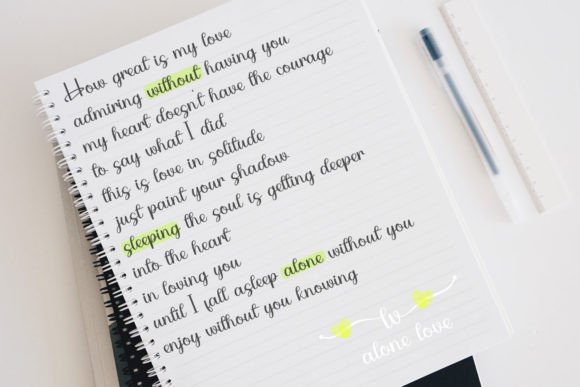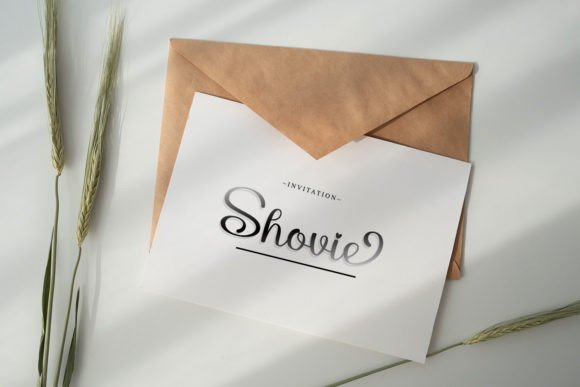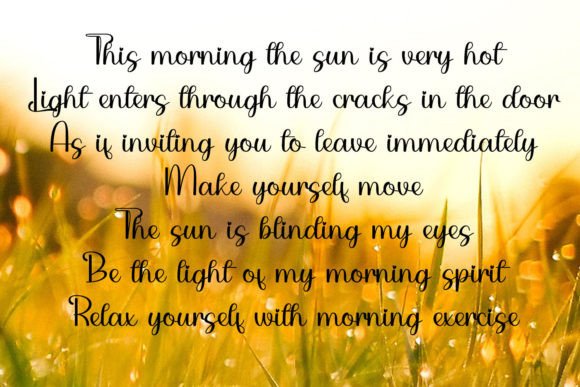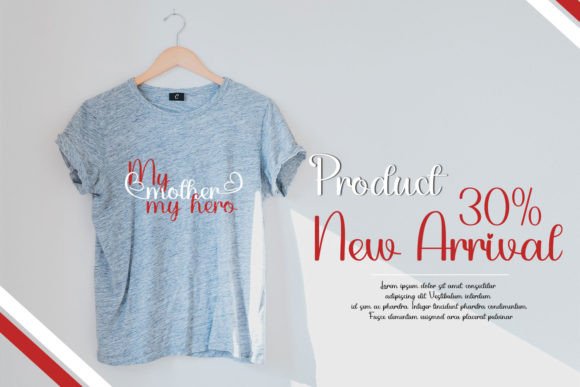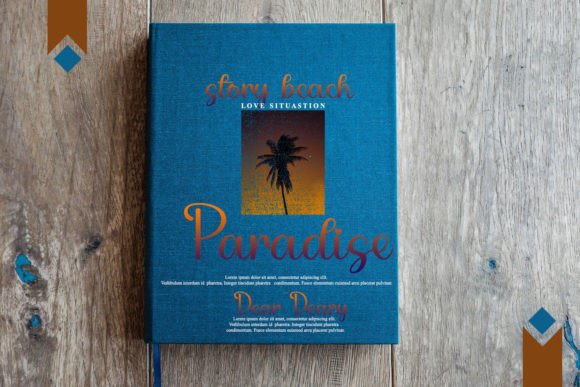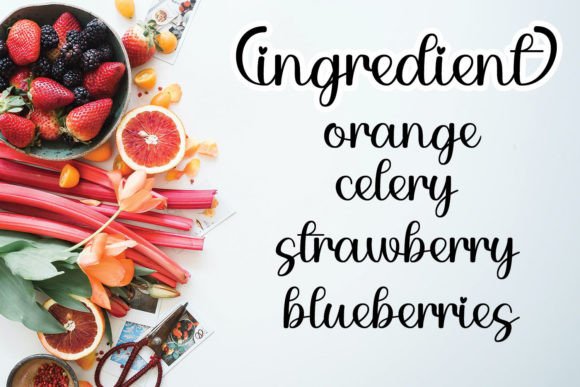
Introduction to Love Situation Font
Love Situation is a handwritten script & font with a new and simple style that provides many opportunities to use for various projects that want to work with stability in each letter and 300+ alternatives that are sure to provide countless comfort and creativity.
Key Features of Love Situation Font
Why Choose Love Situation Font?
Love Situation Font offers exceptional quality and versatility, making it a valuable addition to your design toolkit. Whether you’re creating for personal projects or commercial use, Love Situation Font delivers professional results.